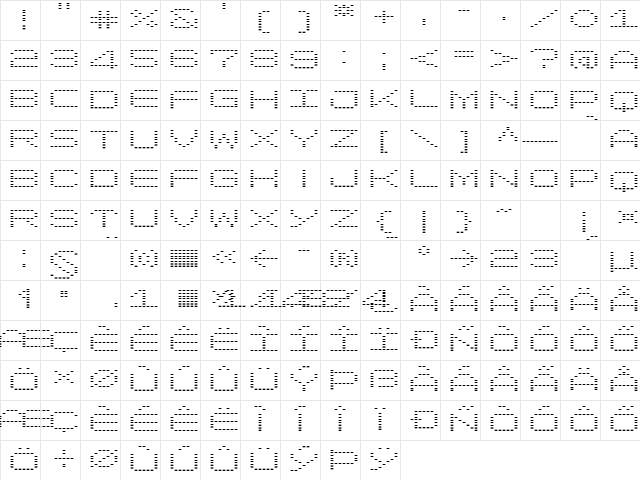
LomoWallDot LT Std 50 Regular
| Foundry | Linotype Library GmbH |
| Designer | Fidel Peugeot |
Design Context for LomoWallDot LT Std 50 Typeface
LomoWallDot LT Std 50 celebrates the constraints of early digital type, turning pixel geometry into a distinctive and immediately recognisable style.
Well-suited to indie game interfaces, retro computing aesthetics, and pixel art-adjacent design work.